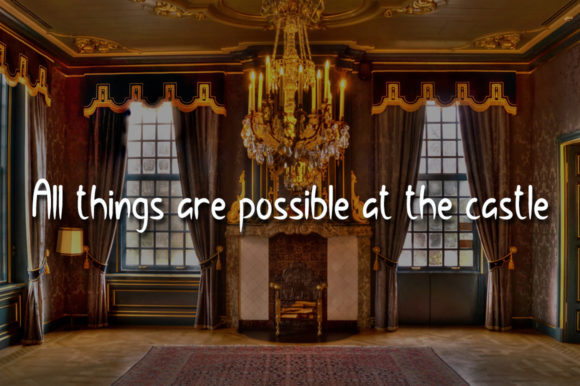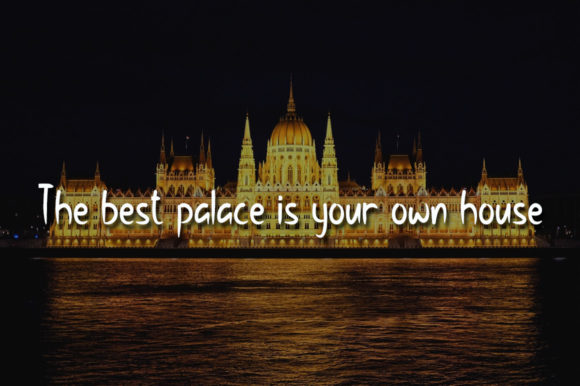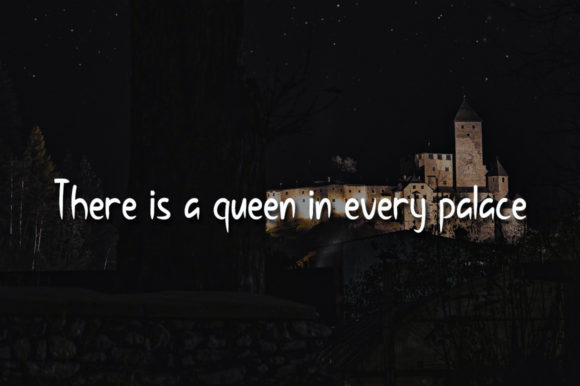
Introduction to Queendom Font
Queendom is a simple and adaptable handwritten font.
Its informal style and casual vibe will make this font a go-to choice for each of the creations that require a relaxed touch .